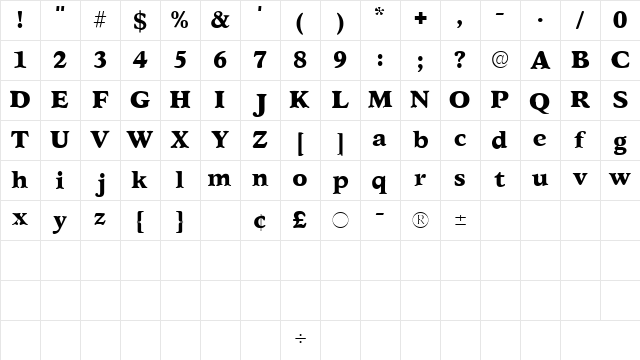
GrafeSSK Regular
GrafeSSK Family
Design Context for GrafeSSK
GrafeSSK is a composed and adaptable typeface that performs quietly and consistently across a wide range of design contexts.